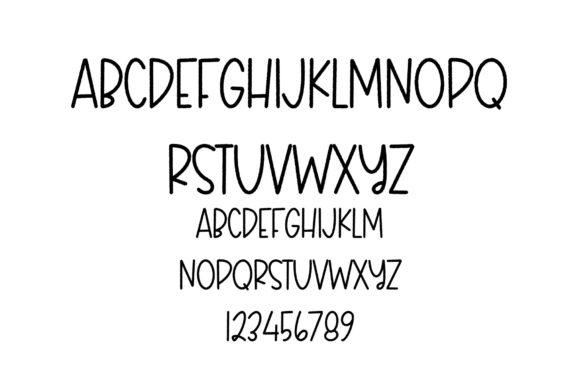
Magnolia Tree Font
db-ku.com - Script & Handwritten -- Magnolia Tree is a cool, thin lettered and friendly handwritten font. Its sweet and full of life style makes this font a wonderful choice for brightening up your designs.